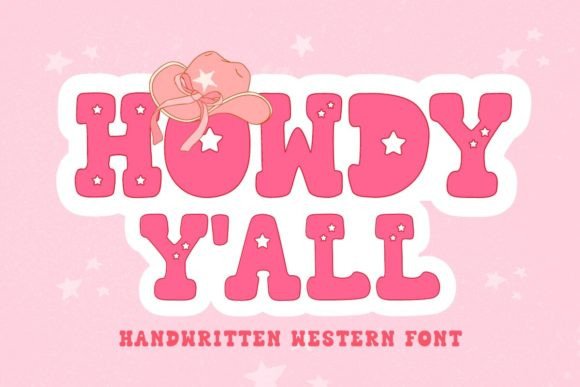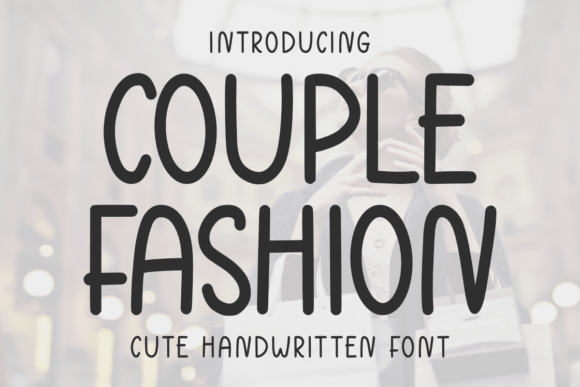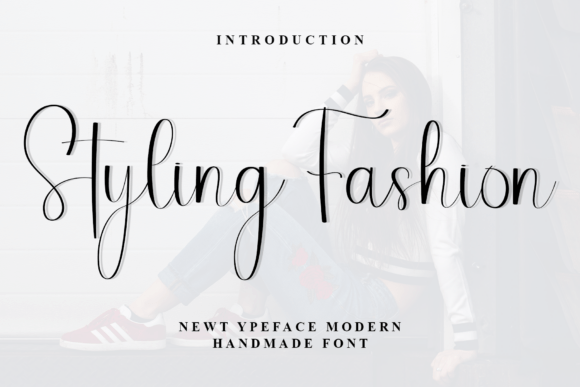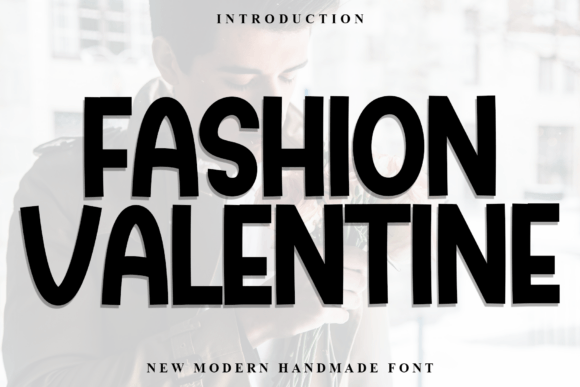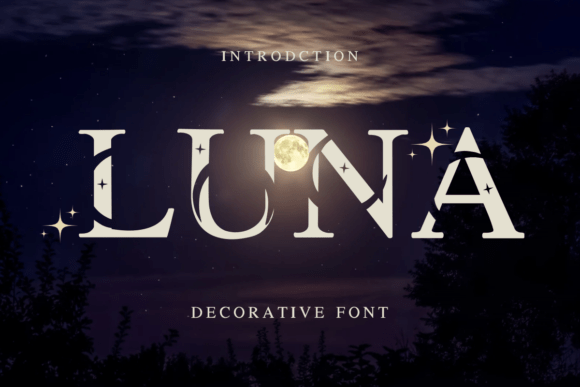
Playful display fonts for logos give a brand permission to smile. A bouncy, characterful wordmark reads fun, friendly and approachable, which is gold for kids brands, treats, events and any label that does not take itself too seriously. The best playful display fonts for logos bring personality while staying clear enough to work as a real mark.
This guide sorts 13 fonts by style, fun display faces, cute handwritten fonts, decorative themed faces and retro bold options, so you can match the mood to your brand.
How to use playful display fonts for logos
Playful is fun until it stops being readable. A few rules keep playful display fonts for logos clear.
- One playful face: let the display font be the star and keep the rest plain.
- Short and big: playful type flatters a short name set large.
- Match the audience: cute suits kids, quirky suits creative, bold suits events.
- Test small: busy shapes can clog at favicon size, so check it shrinks.
Playful display fonts for fun logos
Start here. These playful display fonts for logos bring bouncy, high-energy fun to a wordmark.
Girls Lover
Girls Lover is a sweet, high-energy display typeface. Among playful display fonts for logos it bursts with fun, ideal for a kids, candy or party brand. Use it large for the name where the bouncy shapes can show, with a clean sans for detail. The energetic forms read cheerful at size. For a brand that wants a sweet, high-energy logo, Girls Lover is a fun display font worth a close look.
Howdy Y’all
Howdy You All is a cute, western-themed funny display font. Among playful display fonts for logos it brings a rodeo, country-fair charm, good for a western, BBQ or novelty brand. Use it large for the name and a clean sans for detail. The themed forms read fun and friendly. For a brand that wants a cute, western-style logo, Howdy You All is a characterful display font worth trying.
Couple Fashion
Couple Fashion is a charming handwritten font with a trendy twist and tall, lively forms. Among playful display fonts for logos it reads fun yet stylish, good for a fashion or lifestyle brand that wants playful with polish. Use it large for the name and a clean sans for detail. The lively forms read cheerful. For a brand that wants a charming, on-trend playful logo, Couple Fashion is a likeable display font worth a look.
Styling Fashion
Styling Fashion is a casual, creative font full of warmth and friendliness. Among playful display fonts for logos it brings a relaxed, hand-made fun, good for a craft or lifestyle brand. Use it large for the name and a clean sans for detail. The casual forms read warm and approachable. For a brand that wants a friendly, creative playful logo, Styling Fashion is a fun display font worth trying.
Fashion Valentine
Fashion Valentine is a casual, creative font with warmth and friendliness. Among playful display fonts for logos it brings a sweet, loving energy, good for a Valentine, gift or lifestyle brand. Use it large for the name and a clean sans for detail. The casual forms read cheerful and warm. For a brand that wants a sweet, playful logo, Fashion Valentine is a likeable display font worth a look.
Cute handwritten fonts for playful brands
For a sweeter, softer kind of fun, these cute handwritten faces give a playful brand a hand-drawn charm.
Fashion
This Fashion font is a cute, delicately lettered handwritten face. Among cute playful display fonts for logos it brings a soft, hand-drawn charm, good for a stationery, kids or craft brand. Use it for the name and short headers, with a clean sans for detail. The delicate forms read sweet at size. For a brand that wants a cute, hand-lettered logo, this Fashion font is a charming option worth trying.
Quirky Fashion
Quirky Fashion is a stylish, distinctive serif with a quirky character. Among playful display fonts for logos it blends classic serif shapes with a fun twist, good for a brand that wants playful but a little grown-up. Use it large for the name and a clean sans for detail. The quirky forms read characterful at size. For a brand that wants a playful serif logo with personality, Quirky Fashion is a distinctive display font worth a look.
Decorative and themed display fonts
For a strong concept, these decorative and themed playful display fonts for logos lean into a clear idea, celestial, boho, whimsical.
Luna
Luna is a dreamy, celestial-inspired decorative font. Among themed playful display fonts for logos it leans into a starry, moonlit concept, perfect for a mystical, kids or wellness brand. Use it large for the name where the celestial detailing shows, with a clean sans for detail. The decorative forms read magical at size. For a brand that wants a celestial, dreamy logo, Luna is a characterful display font worth trying.